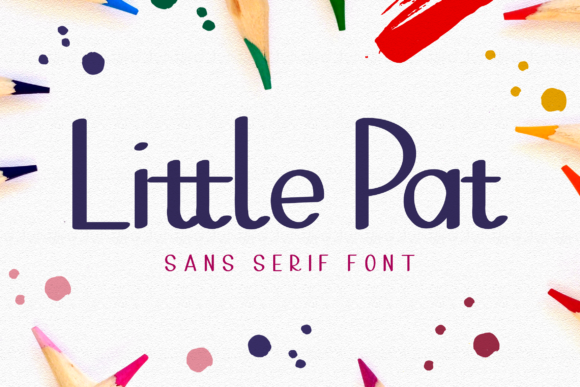
Discover the Versatility of Little Pat 1 Font: Elevate Your Crafting Ideas
In the world of typography, fonts play a crucial role in conveying messages, expressing emotions, and creating visual identities. Among the numerous fonts available, Little Pat 1 Font stands out for its simplicity, adaptability, and versatility. This sans serif font is designed to elevate a wide range of crafting ideas, from cards to branding, labels, and more. In this article, we’ll explore the features, benefits, and uses of Little Pat 1 Font, and how it can add a touch of creativity to your projects.
Key Features of Little Pat 1 Font
• Simple and Adaptable: Little Pat 1 Font boasts a clean and minimalist design, making it easy to read and versatile for various applications.
• Sans Serif: The font’s sans serif style gives it a modern and sleek look, perfect for projects that require a contemporary feel.
• Wide Range of Uses: From cards and invitations to branding, labels, and more, Little Pat 1 Font can be used in various crafting ideas.
Benefits of Using Little Pat 1 Font
So, why choose Little Pat 1 Font for your projects? Here are some benefits that make it an excellent addition to your font collection:
• Ease of Use: Little Pat 1 Font is incredibly easy to use, even for those with limited design experience. Its simplicity ensures that it can be paired with other fonts or used as a standalone font.
• High Readability: The font’s clean design and clear lettering make it highly readable, even at small sizes.
• Flexibility: Little Pat 1 Font can be used in various contexts, from digital projects to print materials.
• Unique Touch: The font’s modern and sleek design adds a unique touch to your projects, setting them apart from others.
Crafting Ideas to Elevate with Little Pat 1 Font
Little Pat 1 Font is an excellent addition to various crafting ideas. Here are some projects that can be elevated with this versatile font:
• Cards and Invitations: Use Little Pat 1 Font to create personalized cards and invitations for special occasions.
• Branding: The font’s modern design makes it perfect for branding projects, such as logos, business cards, and letterheads.
• Labels: Add a touch of creativity to your labels with Little Pat 1 Font, perfect for product labels, address labels, or file labels.
• Digital Projects: Use the font in digital projects, such as social media graphics, blog posts, or website designs.
Tips and Tricks for Using Little Pat 1 Font
To get the most out of Little Pat 1 Font, here are some tips and tricks to keep in mind:
• Experiment with Sizes: Try different font sizes to see how Little Pat 1 Font works in various contexts.
• Pair with Other Fonts: Combine Little Pat 1 Font with other fonts to create a unique and visually appealing design.
• Play with Colors: Experiment with different colors to see how they interact with the font.
• Keep it Simple: Don’t be afraid to keep things simple – Little Pat 1 Font’s clean design shines when used on its own.
In conclusion, Little Pat 1 Font is a versatile and adaptable sans serif font that can elevate a wide range of crafting ideas. Its simplicity, readability, and flexibility make it an excellent addition to any font collection. Whether you’re a designer, crafty enthusiast, or DIY expert, Little Pat 1 Font is sure to become a favorite. So, add it confidently to your favorite creations and let yourself be amazed by the outcome generated!
Get Creative with Little Pat 1 Font